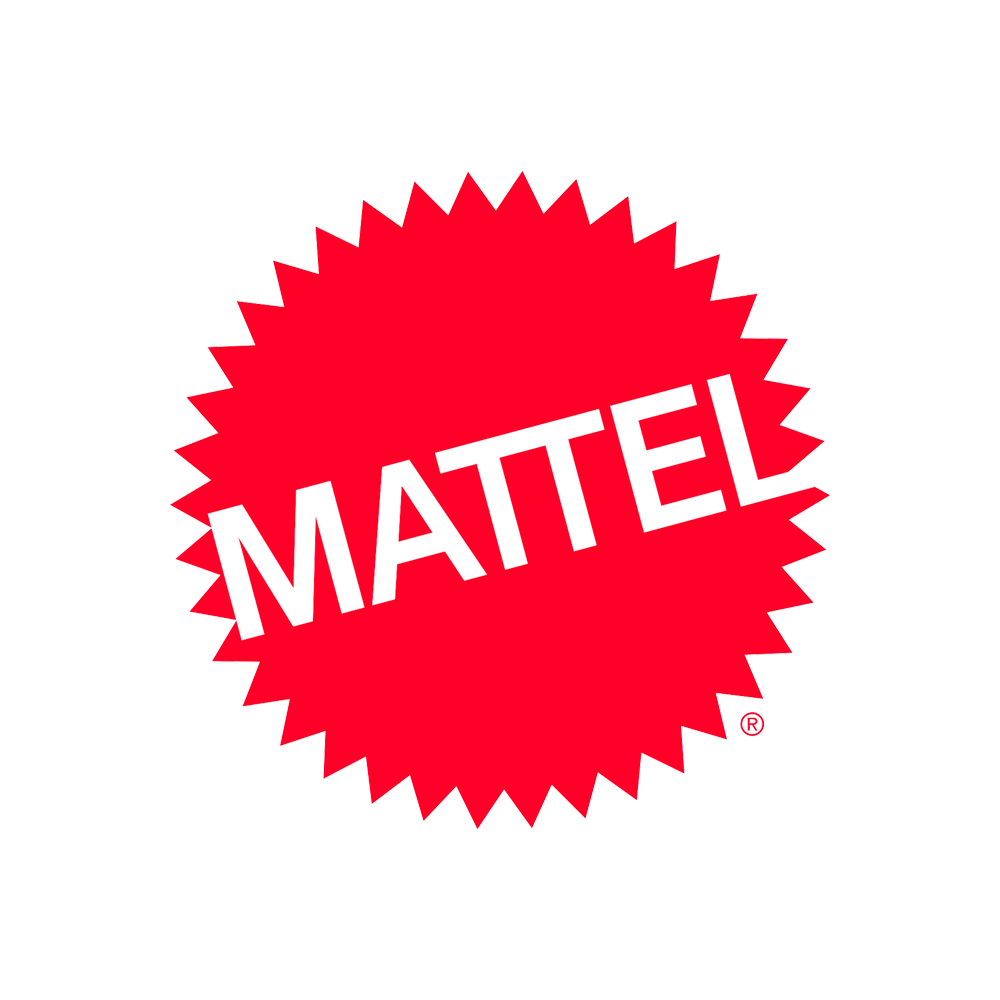
Mattel Font
Mattel logo appears to use the Helvetica Bold font designed by Max Miedinger in 1957 for the Haas Type Foundry in Switzerland. To learn more about it, visit here.